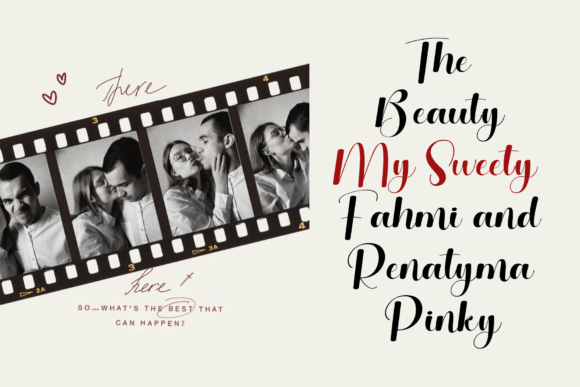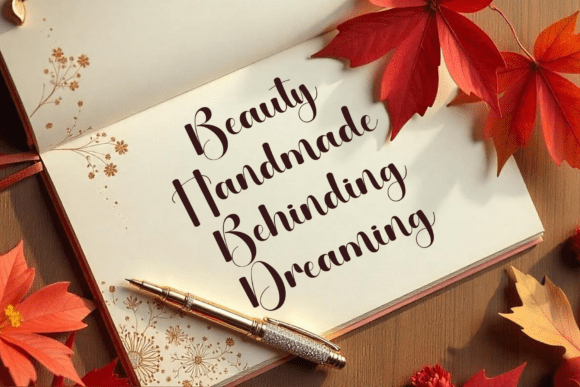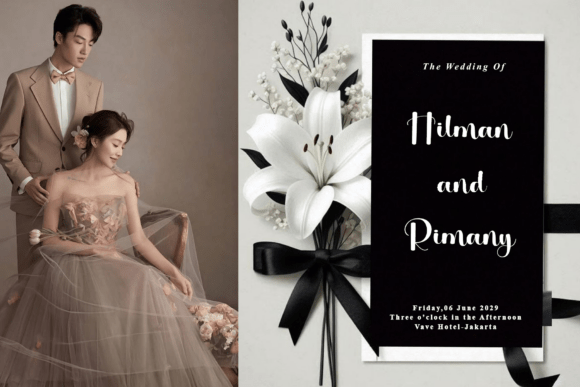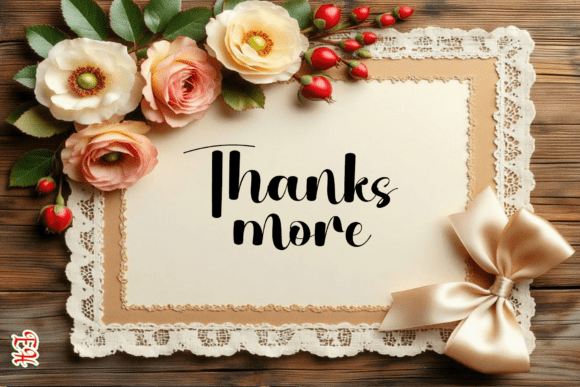
The Power of Branding Font: Elevate Your Design with Luxury and Sophistication
When it comes to creating a lasting impression, the right typography can make all the difference. For designers and crafters looking to add a touch of luxury and sophistication to their work, the Branding Font is an exceptional choice. This stunning, high-contrast script is reminiscent of the elegant calligraphy found on high-end gala invitations, and its unique features make it perfect for a wide range of applications.
What is Branding Font?
Branding Font is a beautiful, hand-crafted typeface that boasts dramatic, sweeping ascenders and descenders, delicate loops and curls, and a sense of movement and grace. Its high-contrast design gives it a distinctive, eye-catching appearance that is sure to turn heads. As a “heavy” script, Branding Font features significant weight in the downstrokes, allowing it to remain legible even when placed over complex photographic backgrounds.
Key Features of Branding Font
- High-contrast design: The dramatic contrast between thick and thin strokes gives Branding Font its unique, elegant appearance.
- Dramatic ascenders and descenders: The sweeping lines and curves of Branding Font add a sense of movement and sophistication to any design.
- Delicate loops and curls: The intricate details of Branding Font make it perfect for designs that require a touch of luxury and refinement.
- Legibility: Despite its elegant design, Branding Font remains highly legible, even over complex backgrounds.
Uses for Branding Font
Branding Font is an incredibly versatile typeface that can be used in a wide range of applications, including:
- Logo design: The luxurious, high-end feel of Branding Font makes it perfect for logos that require a touch of sophistication.
- Invitations and event materials: Branding Font is ideal for creating elegant invitations, programs, and other event materials.
- Packaging design: The unique features of Branding Font make it a great choice for packaging design, particularly for luxury brands.
- Advertising and marketing materials: Branding Font can add a touch of elegance and refinement to any advertising or marketing campaign.
Tips for Using Branding Font
To get the most out of Branding Font, here are a few tips to keep in mind:
- Use it sparingly: Due to its elegant, high-end feel, Branding Font is best used sparingly to avoid overwhelming the design.
- Pair it with a simple font: Branding Font pairs beautifully with simple, sans-serif fonts that provide a nice contrast to its elegant design.
- Experiment with colors: Branding Font looks stunning in a range of colors, from metallic gold and silver to rich jewel tones.
Branding Font is a truly exceptional typeface that can elevate any design to new heights of luxury and sophistication. Its unique features, versatility, and legibility make it an excellent choice for designers and crafters looking to add a touch of elegance to their work. Whether you’re creating a logo, invitation, or packaging design, Branding Font is sure to make a lasting impression.